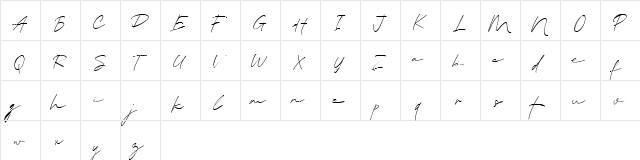
Blante Panama Script DEMO Regular
| Foundry | Konstantine Studio |
| Designer | Konstantine Studio |
Design Context for Blante Panama Script DEMO Typeface
Blante Panama Script DEMO flows with the natural rhythm of handwritten lettering, making it ideal for designs that call for warmth and personal expression.